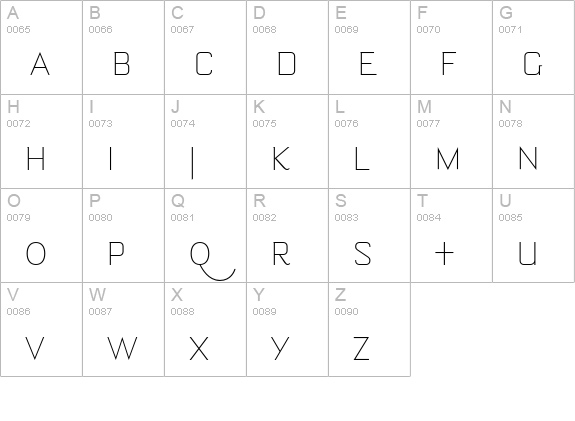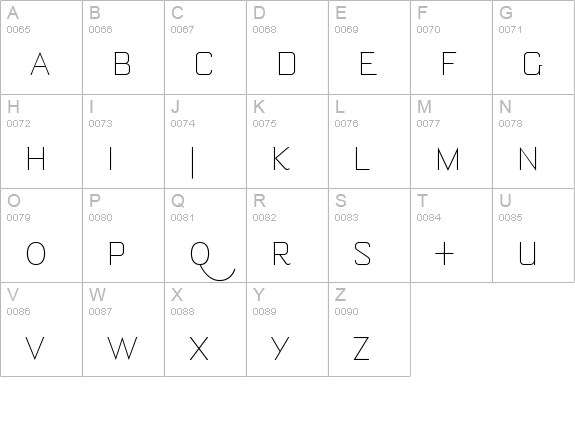
Bourgeois LightAlt Font Details
Bourgeois LightAlt font is a sleek and sophisticated typeface that exudes elegance and modernity. Its clean lines and minimalistic design make it perfect for a wide range of projects, from branding to editorial design. This versatile font strikes the perfect balance between professionalism and style, making it ideal for both digital and print applications. What sets Bourgeois LightAlt font apart is its unique blend of classic and contemporary elements, giving it a timeless appeal that will never go out of style. Whether you're creating a logo, designing a website, or crafting a brochure, this font will add a touch of sophistication to your work. Best of all, Bourgeois LightAlt font is free to download at FontsMarket.com, making it accessible to designers of all levels. Don't miss out on this opportunity to elevate your designs with this stunning typeface. Download Bourgeois LightAlt font today and take your projects to the next level.